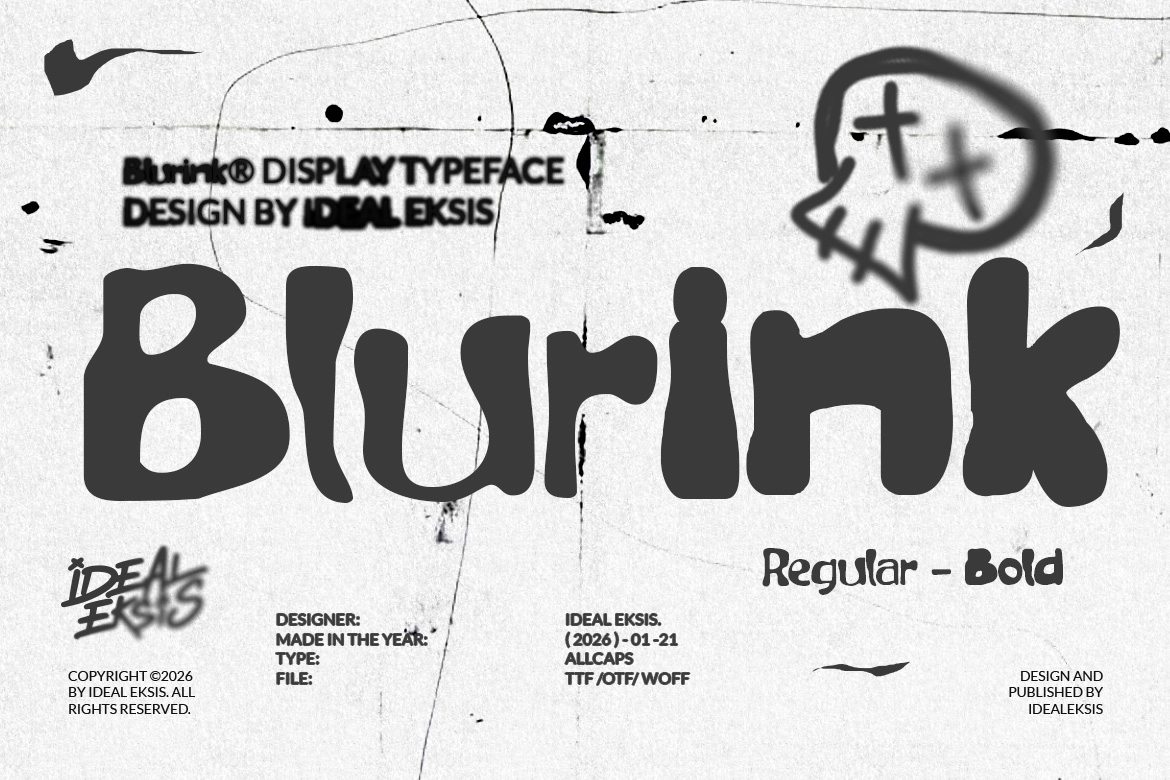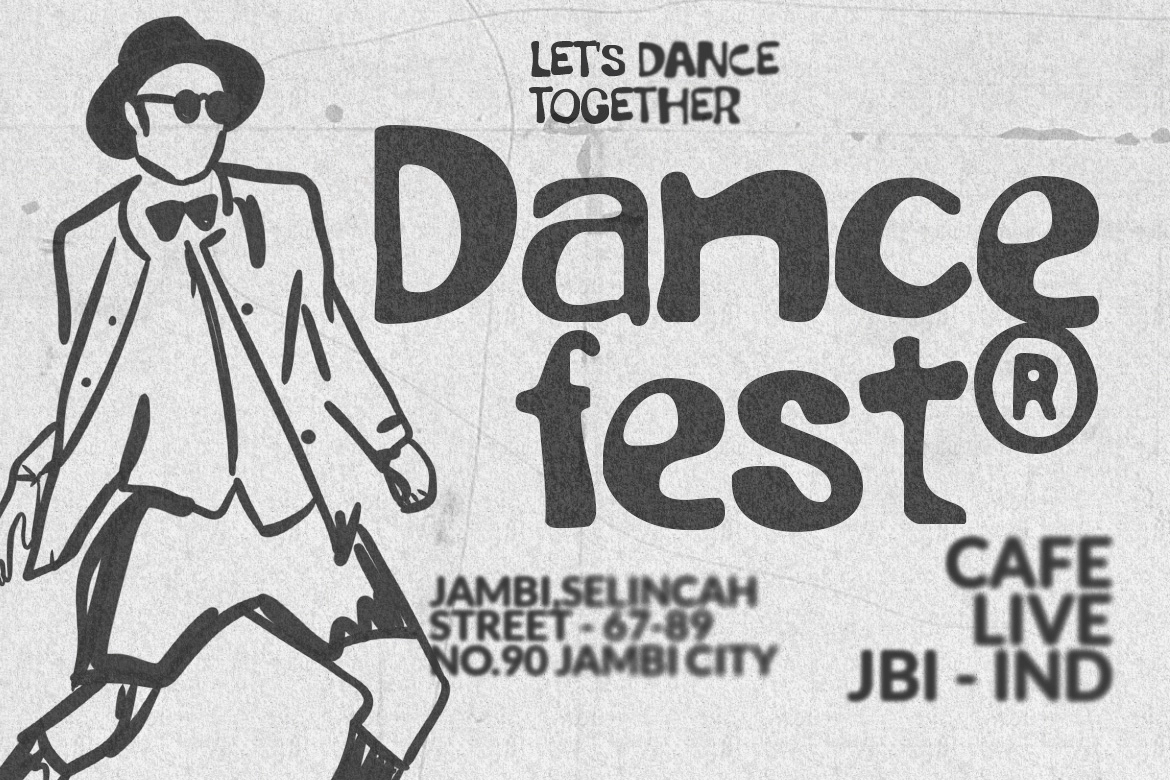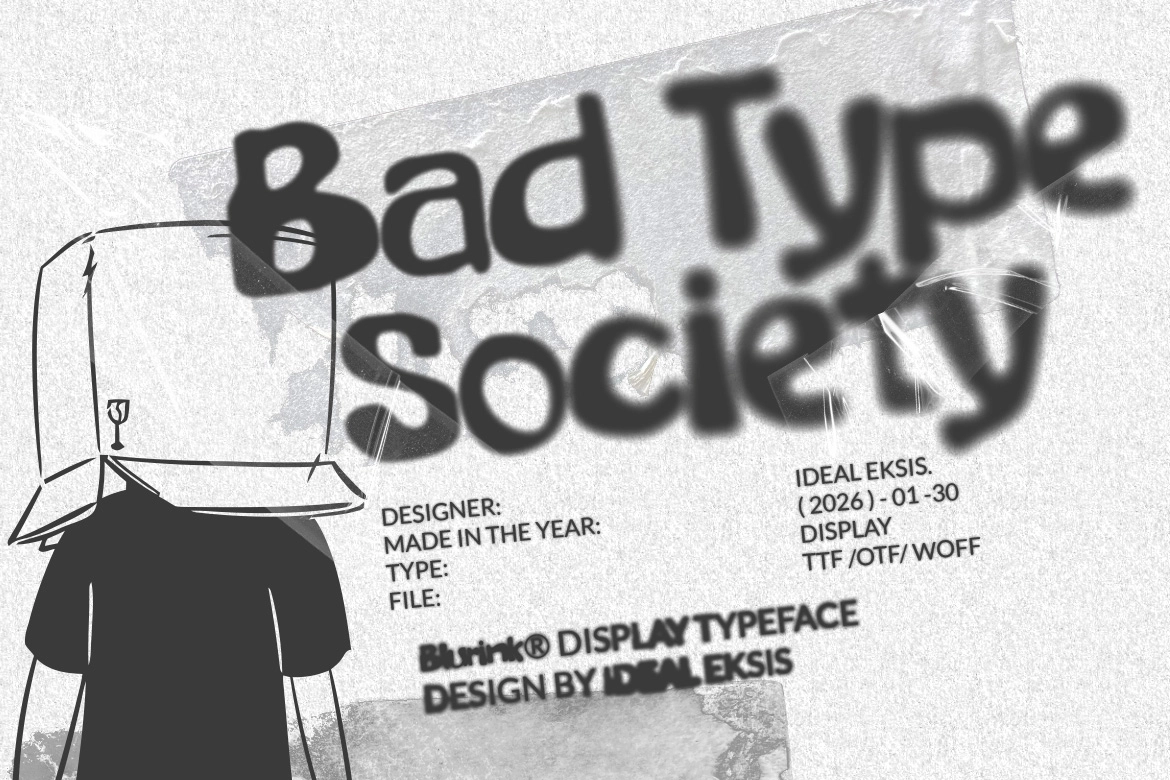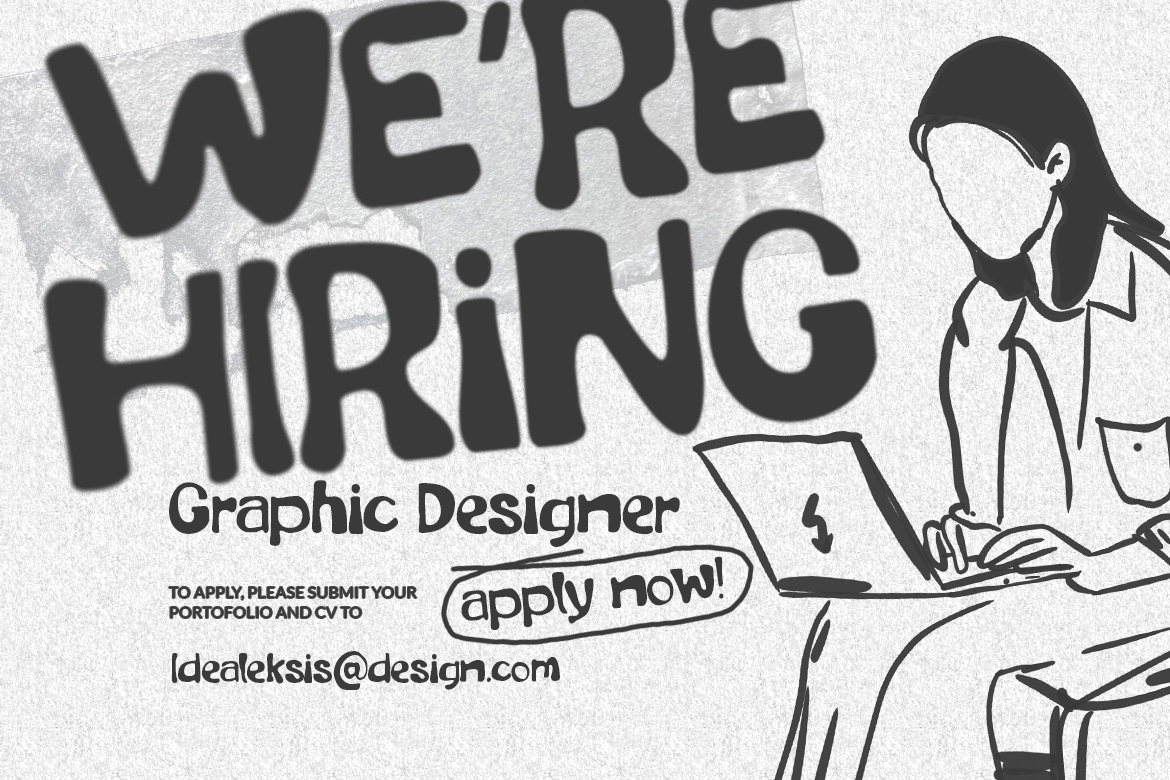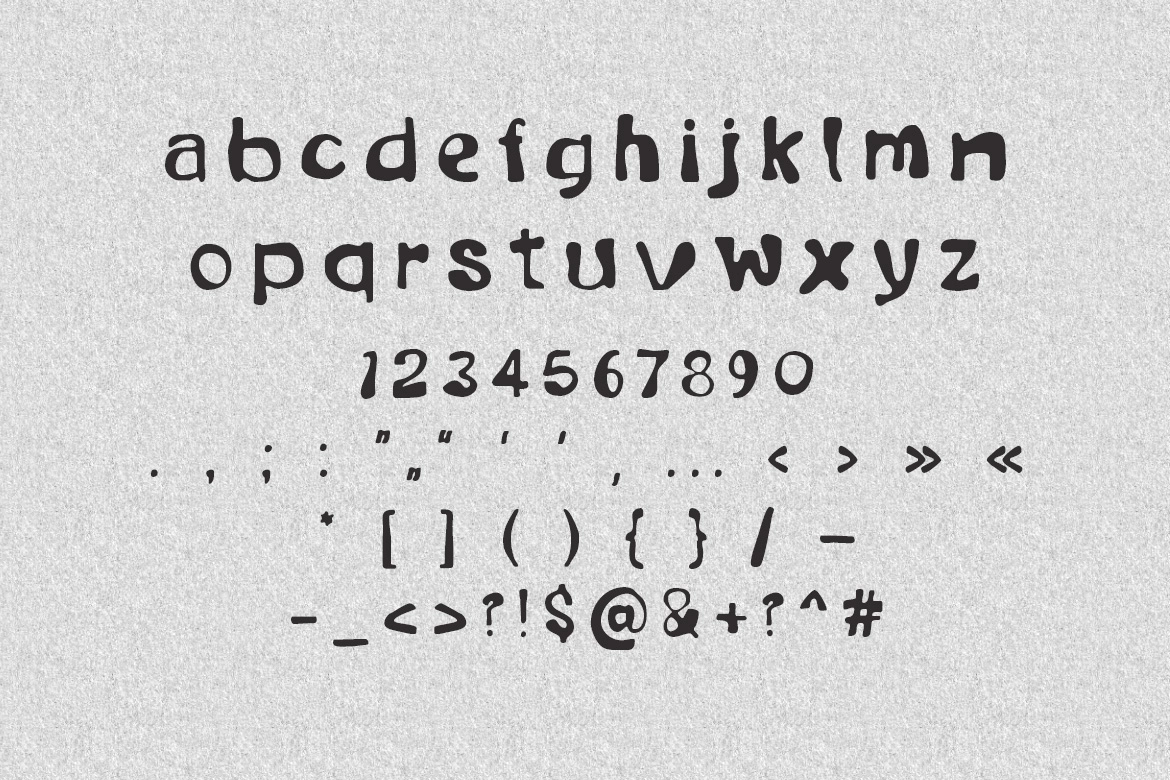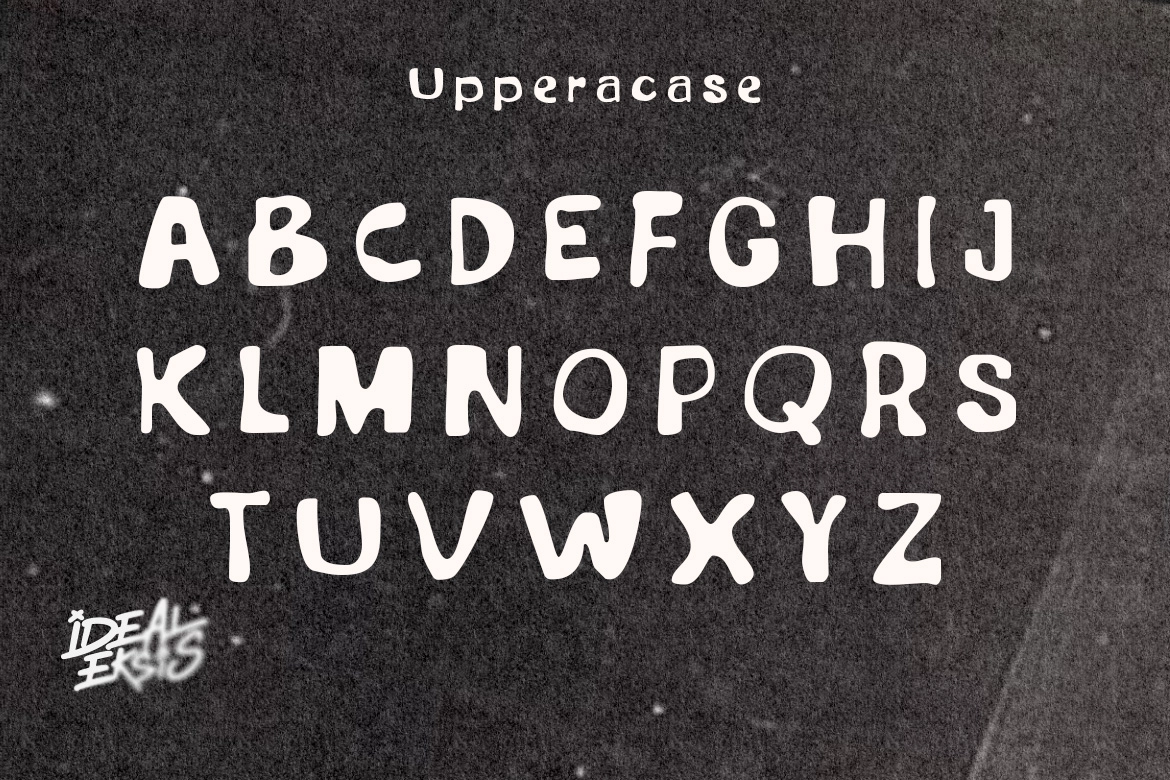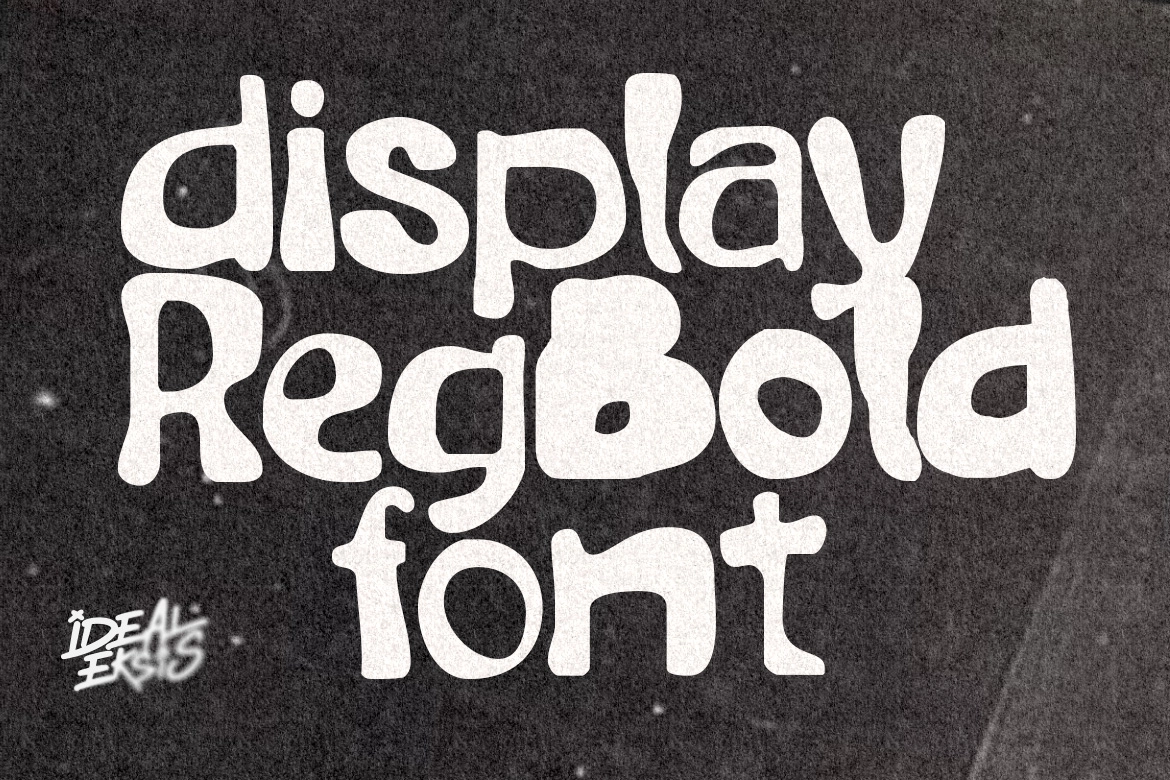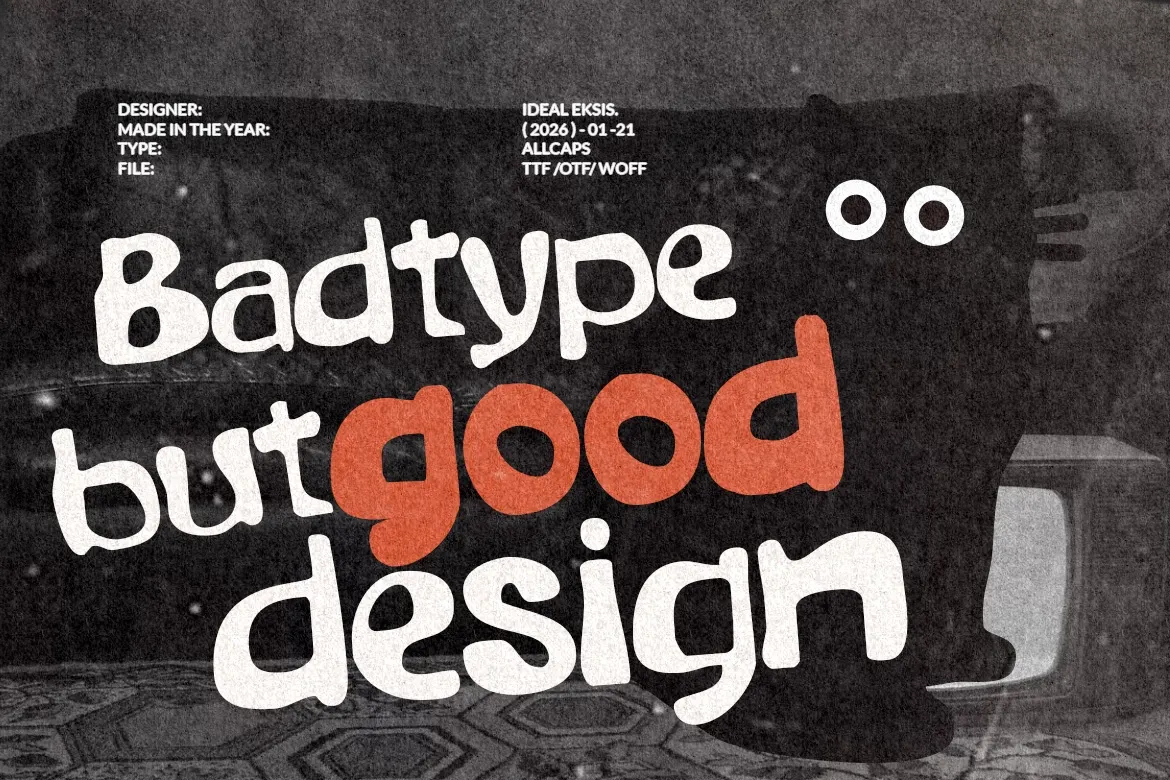
Blurink - Quirky Modern Font
Blurink - Quirky Modern Font is a bold, heavy-weight display typeface designed with soft rounded terminals and organically distorted stroke edges. Its chunky proportions and fluid, slightly wobbly outlines create a strong visual presence while maintaining a playful, hand-drawn character. Inspired by street art and liquid ink textures, Blurink blends raw energy with contemporary design appeal.
The smooth curves and lack of sharp corners give it a friendly yet edgy personality, making it perfect for standout headlines, posters, branding, and urban-inspired creative projects. Blurink delivers a modern DIY aesthetic that feels expressive, unconventional, and visually impactful.
- Uppercase & Lowercase Letters
- Punctuation Marks
- Heavy Display Weight